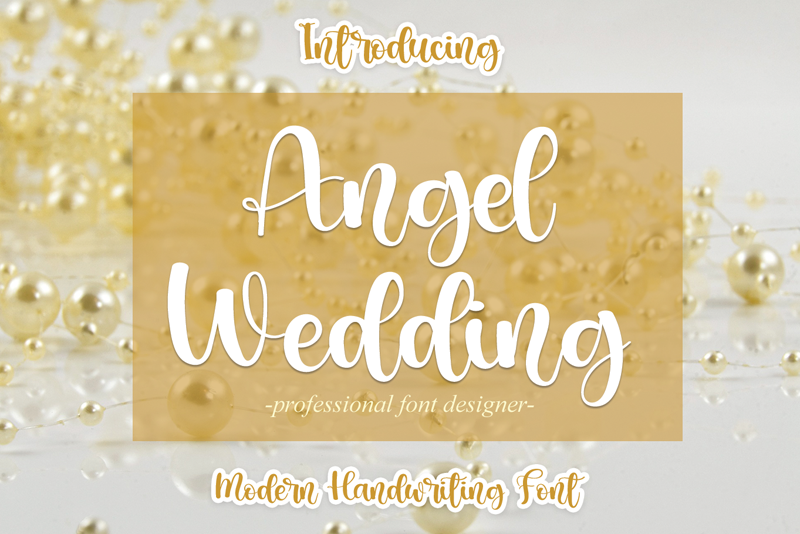
Angel Wedding
Angel Wedding  por Erik Studio
Angel Wedding is a fashionable script font. It is neatly crafted and highly detailed. Whatever the topic, Angel Wedding will be a wonderful asset to your font library, as it has the potential to enhance any creation.